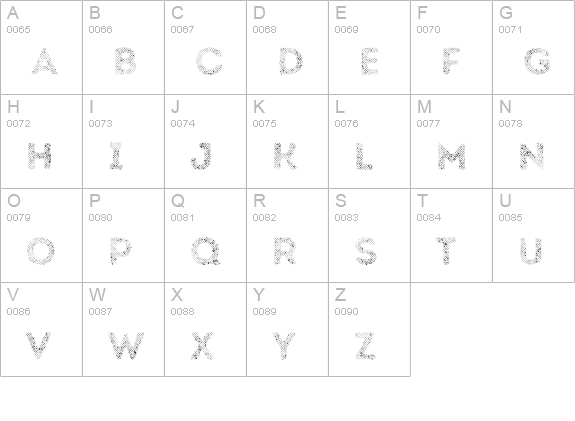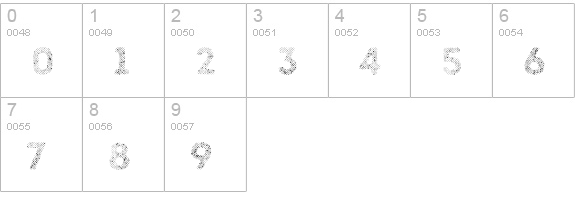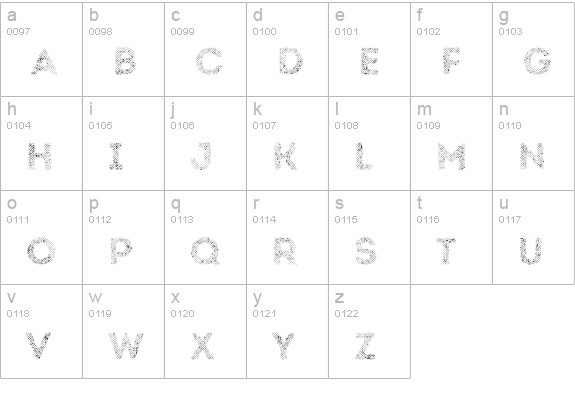
Intro Rust H2 Fill Font Details
Intro Rust H2 Fill is a bold and impactful display font that exudes a sense of strength and modernity. Its strong, thick lines create a striking visual impact, making it perfect for headlines, posters, and branding projects. The industrial-inspired design of this font gives it a unique and edgy look that will make your designs stand out. Best of all, Intro Rust H2 Fill is available for free download at FontsMarket.com. This means that you can easily access this powerful font and use it in your projects without any cost. Whether you're a designer looking to add a bold touch to your work or a business owner wanting to create eye-catching marketing materials, Intro Rust H2 Fill is a versatile and stylish choice that won't break the bank. Download it now and elevate your designs with this impactful font.